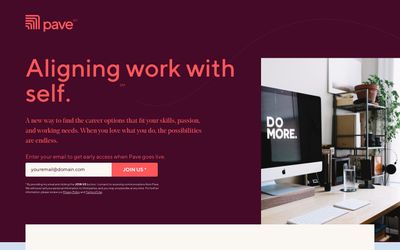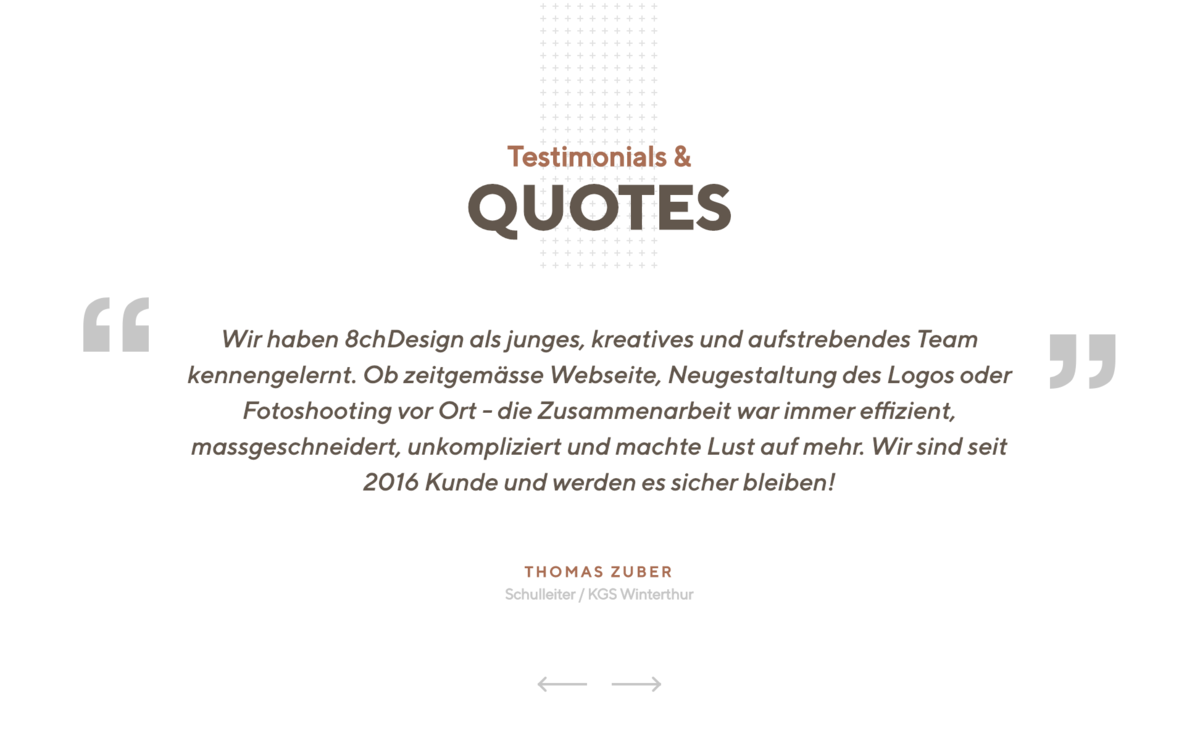
Replaces selected figures which precede a slash with numerator figures, and replaces the typographic slash with the fraction slash.
Tt norms font pairing. If you don't have an account, register now. The font contains 14 opentype features. Tt norms font tt norms is a sans serif typeface font designed by ivan gladkikh in 2017.
Tt norms font tt norms is a sans serif typeface font designed by ivan gladkikh in 2017. Tt norms font pairing october 11, 2021 tt norms pro includes 22 reworked fonts, 1581 glyphs in each font, 24 opentype features, support for more. The idea for tt norms would be the basic type of character proportions.
Because tt norms is a very popular font family, we have been constantly receiving requests to add something new to it, whether it be support for additional languages, mathematical symbols, or even. The idea for tt norms would be the basic type of character proportions. Replaces selected figures which precede a slash with numerator figures, and replaces the typographic slash with the fraction slash.
Tt norms font tt norms is a sans serif typeface font designed by ivan gladkikh in 2017. This font own family have set of arrows, proportional oldstyle figures, tabular oldstyle figures, set of circled digit and set of bad turned around digit. This feature makes all variations of a selected character accessible.
It contains up to 18 beautiful styles. Tt norms pro includes 22 reworked fonts, 1581 glyphs in each font, 24 opentype features, support for more than 216 languages (extended latin, extended cyrillic, greek etc.), and much much more. An application may not support the feature by which the desired glyph would normally be accessed;
This is an amazing typeface that can easily work with different geometric designs and you can also use this typeface with the styling of helena font. Hometown journal, episode 2 2021. The basis for tt norms.
The basis for tt norms. Moonlight script font duo new fonts, font pairing. This typeface is primarily a font that works on the different geometric designs and pair well with the helsinki font and their glyphs.
This font is also usable for cards, leaflets, newspapers (online/offline), presentations, webpages, blogs, book covers, social media posts, advertisements, product designs, posters, and many more. Moonlight script font duo new fonts, font pairing. The user may need a glyph outside the context supported by the normal substitution, or the user may not know what feature produces the desired glyph.
Replaces selected figures which precede a slash with numerator figures, and replaces the typographic slash with the fraction slash. Tt norms one of the popular fonts used today. Contributed by jan eric hühn.
Every glyph has its own standpoint of visual correctness. It was released in 2017. Posted on august 18, 2021.
In it, we tried to bring the font to the new, unprecedented level of functionality, visual quality and technical perfection. Tt norms supported a vast range of 72 languages with 18 great styles. Tt norms pro includes 22 reworked fonts, 1581 glyphs in each font, 24 opentype… read more tt norms font pairing
With 18 styles and huge language support, this font family has a set of arrows, proportional old style figures, tabular old style figures, set of the circled digit, and set of bad turned around the digit. Moonlight script font duo new fonts, font pairing. Tt norms pro popular fonts, popular sans serif fonts
The design features geometric proportions, tight apertures and low stroke contrast. Working on tt norms font family, we’ve aimed to create a modern geometric grotesk with the widest implementation range, a reliable workhorse. The font is available in all formats (tt norms woff2, tt norms woff, tt norms ttf, tt norms eot) and applicable to the website, photoshop and any os.
To do this you need to log into your account. The family is available in nine weights with matching italics. Ivan gladkikh designed the tt norms font.
The font was designed by ivan gladkikh in 2017. For its large number of weights, tt norms font is compatible with every type of work. Desktop license for 1 font — $35.
Tt norms font have 14 opentype features. This font is compatible with every type of designing work.